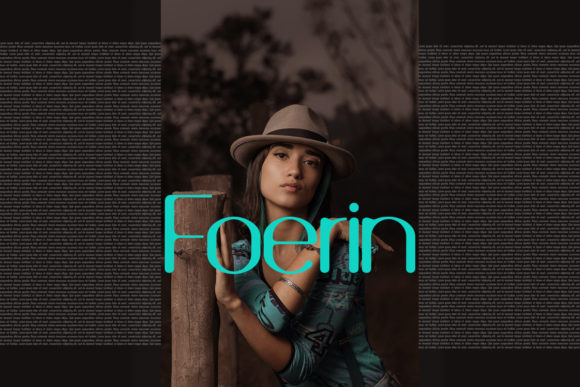
Introducing Foerin Typeface Font, the modern display typeface that will elevate your designs to new heights.
Crafted by the talented team at BeeType, Foerin effortlessly blends minimalism and creativity, making it the perfect choice for a wide range of typography projects. Its single weight lends itself seamlessly to logos, branding, headlines, and any other display usage where impact is paramount.
Whether you're designing professional logos, marketing graphics, or promotional materials, Foerin's versatility shines through. Its clean lines and sharp edges convey a sense of sophistication and professionalism, while its underlying playfulness invites engagement and intrigue.
Imagine your logo standing out with Foerin's bold presence. Picture your headlines capturing attention with its distinct character. Visualize your designs transforming into captivating works of art, all thanks to the power of Foerin Typeface Font.
Don't settle for ordinary fonts that blend into the background. Embrace Foerin's unique charm and watch your designs take center stage. Unleash your creativity and let Foerin's modern aesthetic ignite your imagination.